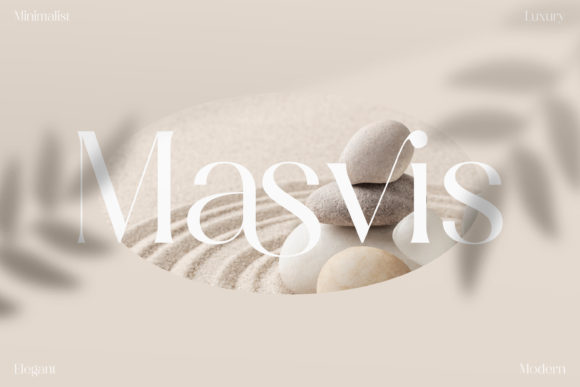
Prepare to be swept off your feet by Masvis, the enchanting serif font that will ignite your creativity and captivate your audience. With its slender strokes and elegant curves, Masvis exudes a timeless charm that will elevate your designs to new heights.
Crafted by the ingenious minds at Storytype Studio, Masvis is not just a font; it's a gateway to a world of visual wonders. Its graceful letterforms dance across the page like a delicate ballet, inviting you to create designs that are both captivating and unforgettable.
But Masvis is more than just a pretty face. Its versatility knows no bounds. Whether you're crafting heartfelt invitations, designing stunning branding materials, or creating eye-catching social media graphics, Masvis has the power to transform your vision into a masterpiece.
The secret behind Masvis's allure lies in its PUA encoding. This magical feature grants you effortless access to a treasure trove of glyphs and swashes, empowering you to unleash your creativity and add a touch of whimsy to your designs.
With Masvis as your creative companion, you'll find yourself immersed in a world where imagination takes flight. Its delicate strokes will evoke a sense of nostalgia, while its modern sensibility ensures your designs remain effortlessly stylish.
So why settle for ordinary when you can embrace the extraordinary? Let Masvis be your font of choice, and watch as your designs blossom into works of art that leave a lasting impression. Its timeless appeal and versatility make it the perfect choice for any creative endeavor, big or small.
Indulge in the allure of Masvis today, and let your creativity soar to new heights. Let its graceful curves and enchanting style captivate your audience and leave them spellbound by your designs. With Masvis by your side, the possibilities are endless.